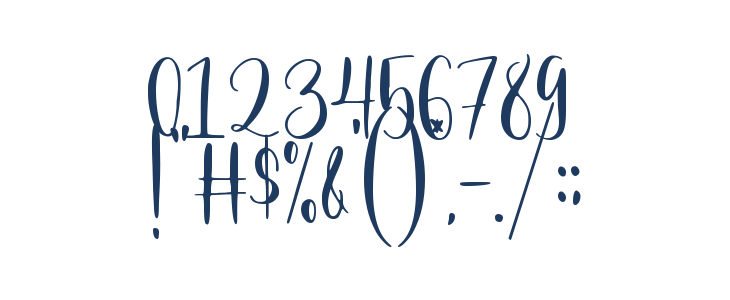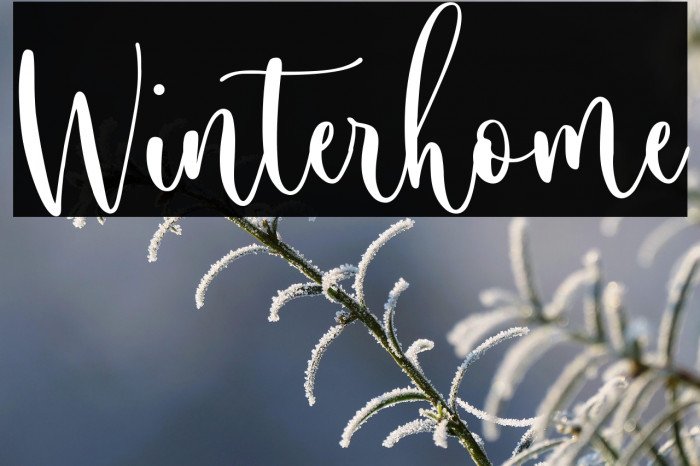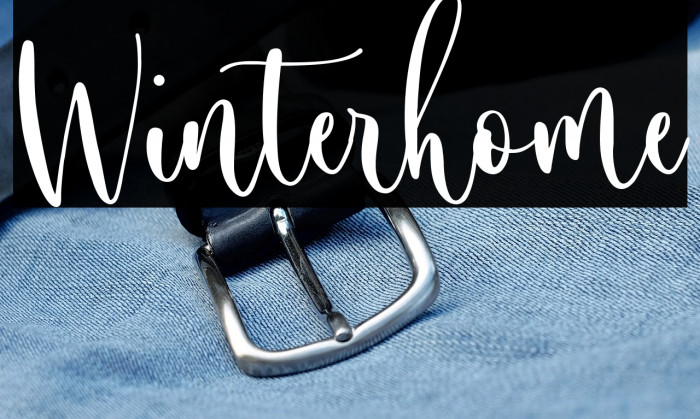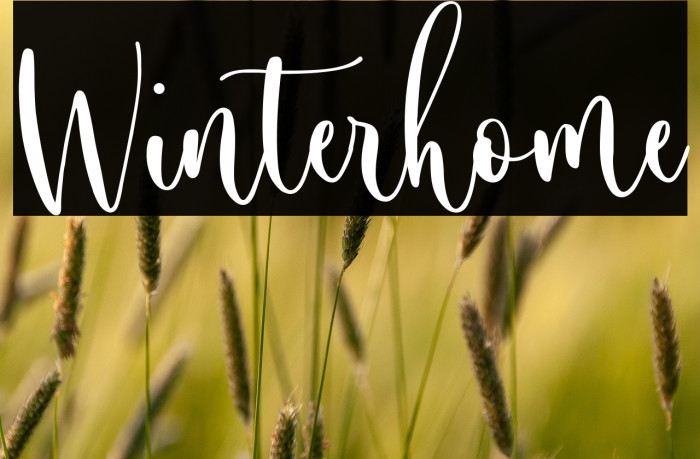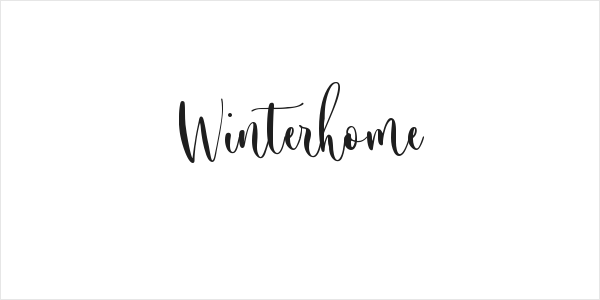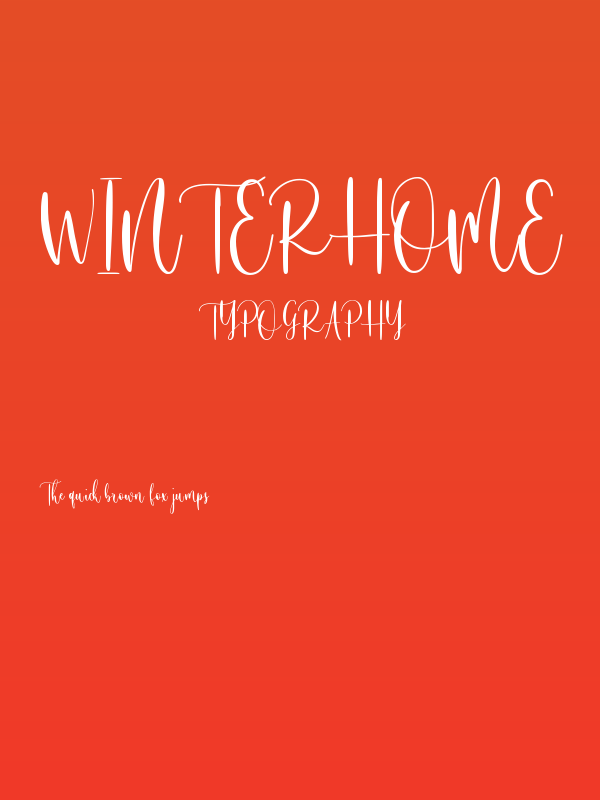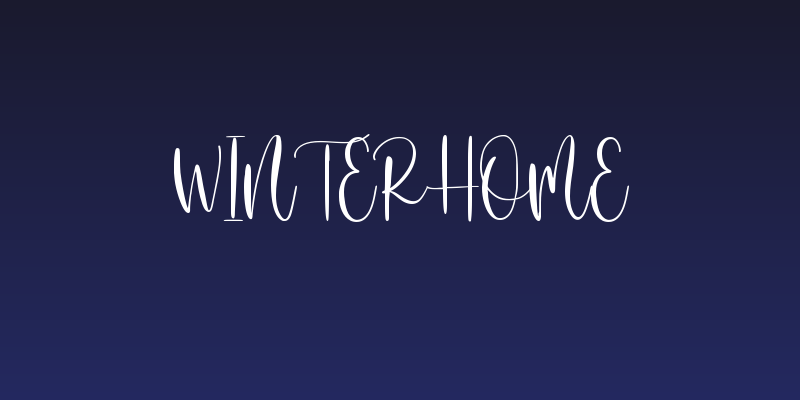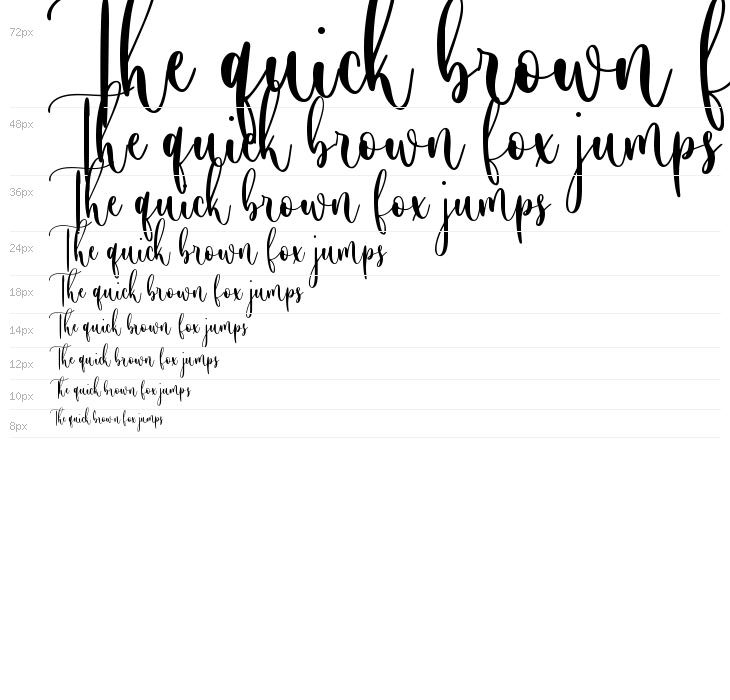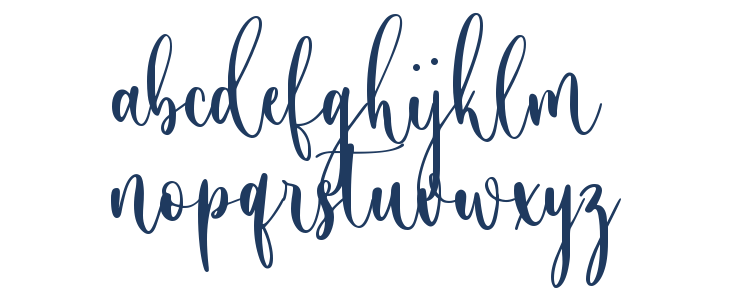
Winterhome Font
Winterhome Description
This font features a lively and flowing script style, characterized by its elegant and cursive letterforms. The uppercase letters exhibit a graceful loop and swirl, while the lowercase letters maintain a consistent fluidity, enhancing the overall aesthetic. The numerals are designed with a similar flair, ensuring a cohesive look across all characters. Special characters are integrated seamlessly, maintaining the font's playful yet sophisticated vibe. This font is ideal for projects that require a personal touch, such as invitations, greeting cards, or branding materials. Its handwritten appearance adds warmth and charm, making it suitable for creative and artistic endeavors.
| Proposed Projects | Ideal for invitations, greeting cards, branding, and artistic projects. |